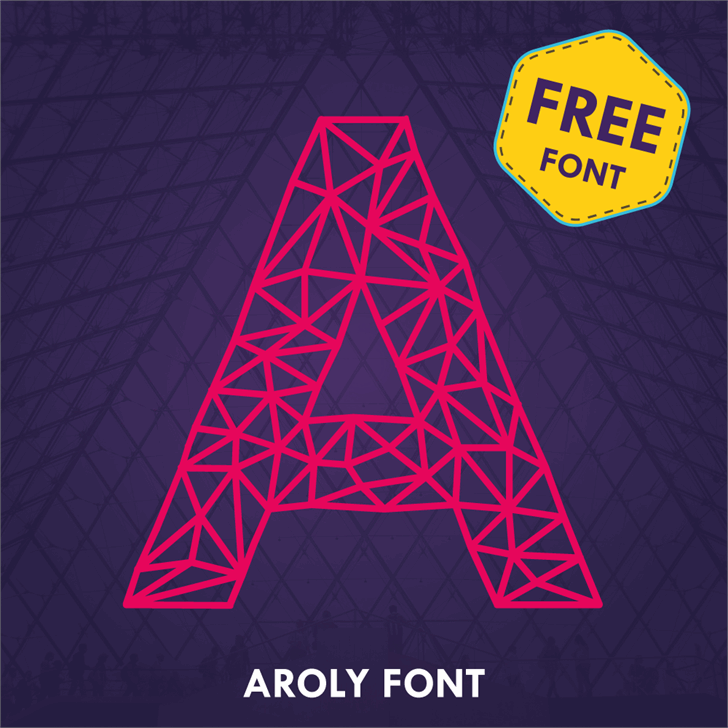
Featuring the awesome free aroly font. Go give some love to Font Space for creating this top-notch free font. This is absolutely fancy font so you can easily make world-class designs.